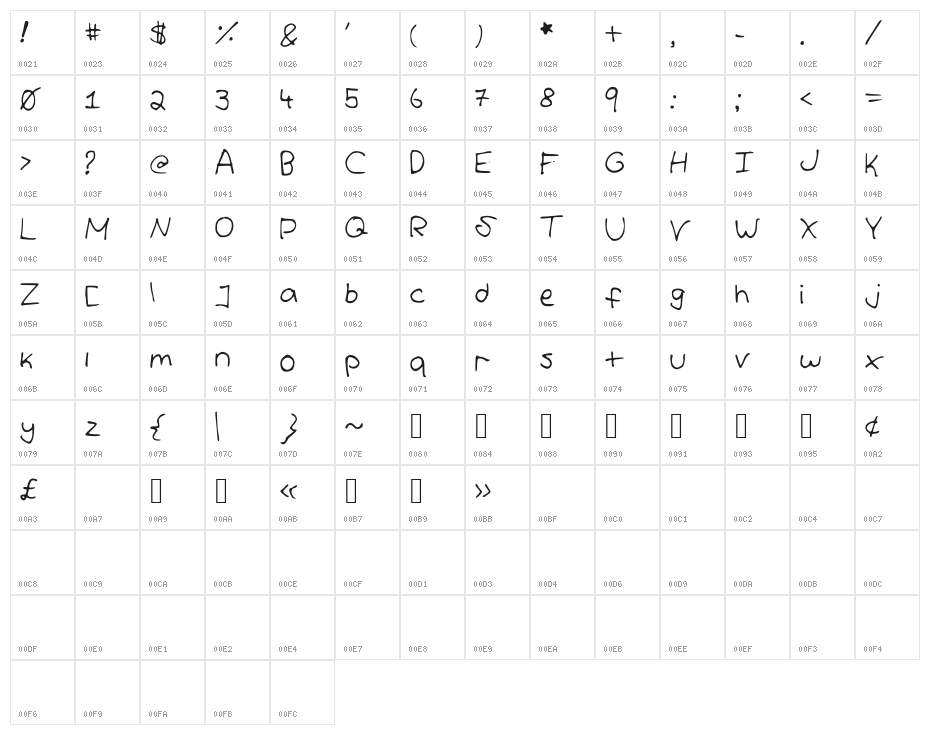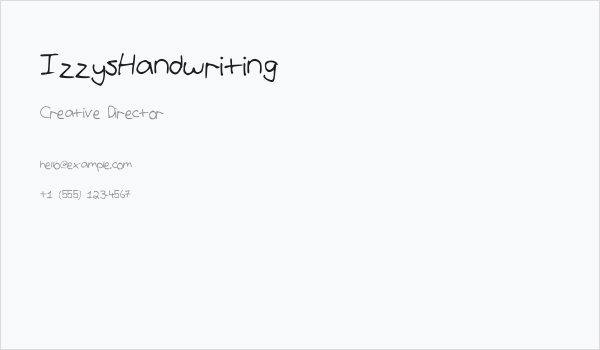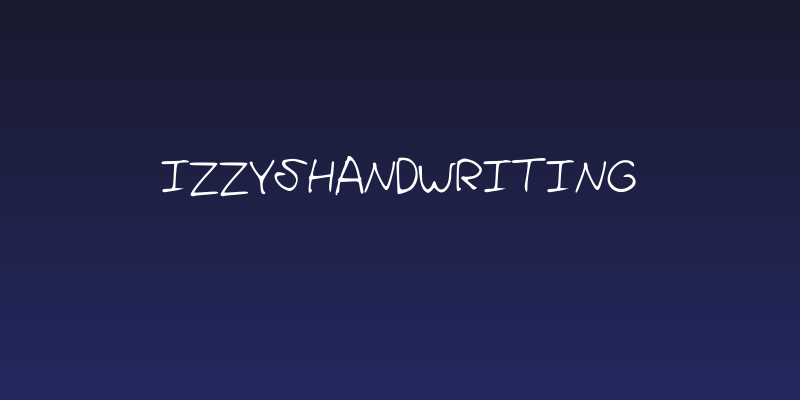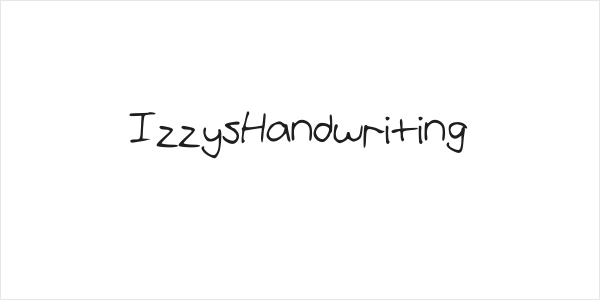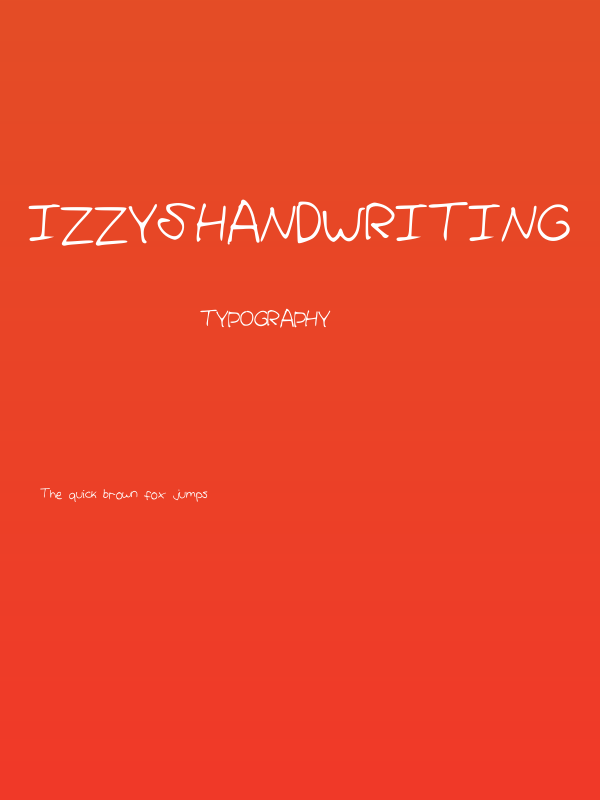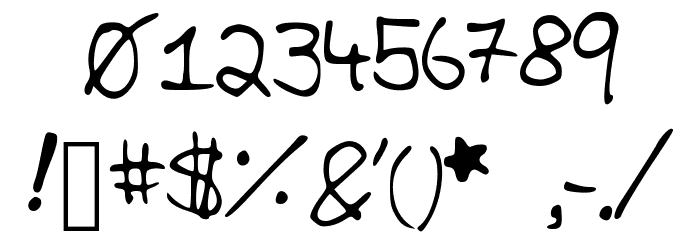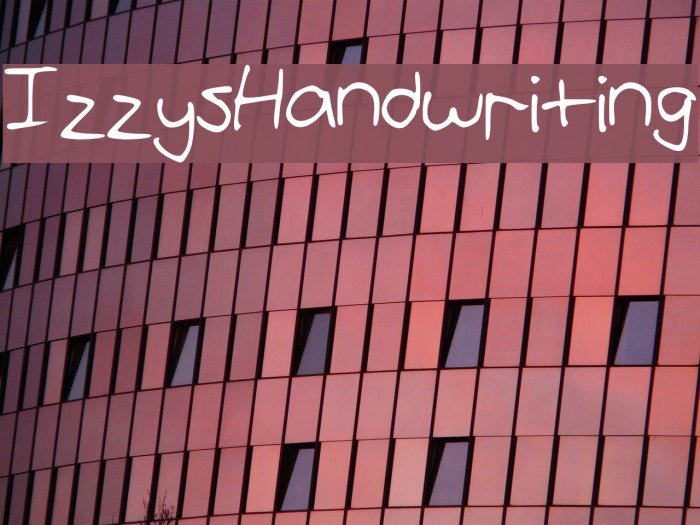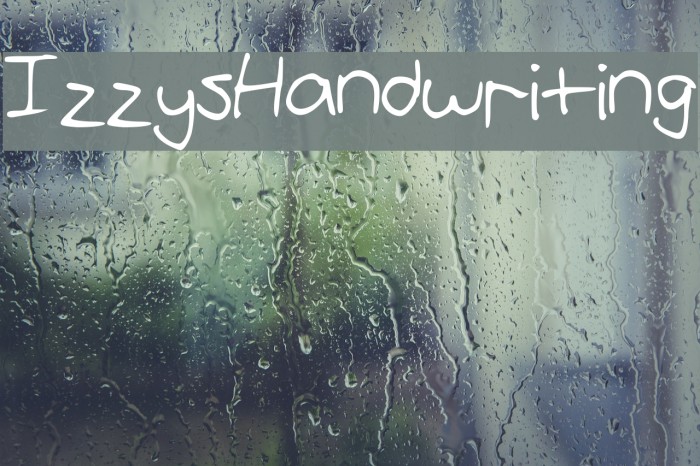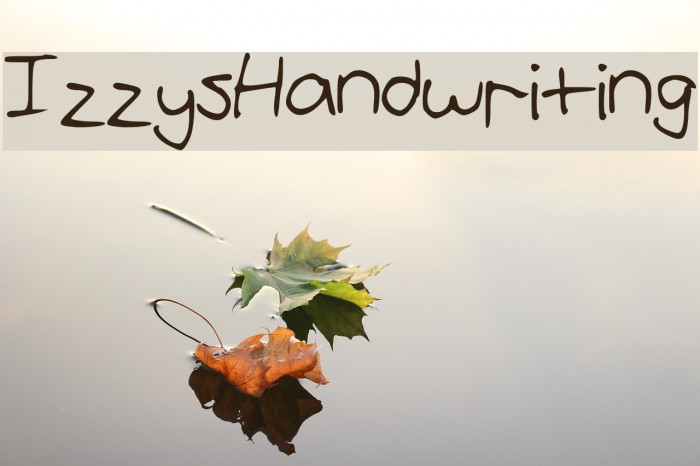
IzzysHandwriting Font
IzzysHandwriting Description
This font exudes a playful and informal style, reminiscent of casual handwriting. The characters are slightly irregular, adding a personal and human touch. The strokes are smooth and rounded, with a consistent thickness that maintains readability. The uppercase and lowercase letters are well-proportioned, and the numbers are clear and distinct. Special characters are creatively designed, maintaining the font's whimsical nature. This font is ideal for projects that require a friendly and approachable aesthetic.
| Proposed Projects | Ideal for greeting cards, children's books, personal blogs, and informal branding. |